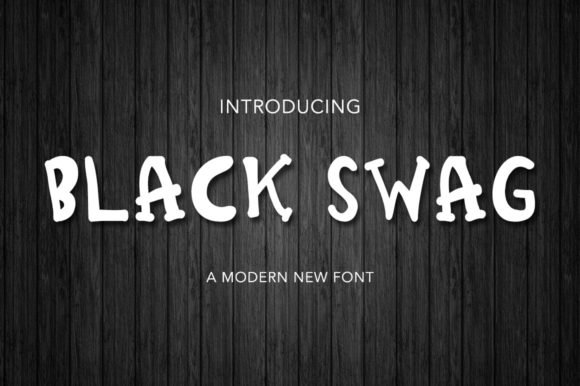
Enter the Black Swag Font, a cute and casual display font that’s sure to turn your creative ideas into stunning reality. Whether you’re looking to add a personal touch to your social media posts or create beautiful calligraphy scripts for DIY projects, the Black Swag Font is the perfect choice. Its versatility and charm make it a valuable asset for any designer looking to add a unique touch to their work.
Key Features of Black Swag Font
- Unique Characteristics: Black Swag Font features a bold, modern design with a touch of elegance, making it ideal for creating eye-catching headlines and titles.
- Style Options: Available in regular and bold weights, providing flexibility for designers to choose the perfect style to match their design needs.
Designer Review: Black Swag Font
Overall, I think the Black Swag Font is a solid choice for anyone looking to add a touch of edginess to their design. ✨ Here are a few things I think work well:
- Unique aesthetic: The Black Swag Font has a distinctive look that sets it apart from more generic sans-serif fonts.
- Good for bold statements: The font’s bold and edgy nature makes it perfect for headlines, titles, and other areas where you want to make a statement.
- Works well in digital design: I’ve had good luck using the Black Swag Font in digital designs, where its bold lines and angles seem to pop.
- Not ideal for body text: Due to its bold nature, the Black Swag Font can be difficult to read in large blocks of text.
- May not be suitable for all audiences: The font’s edgy aesthetic may not be suitable for all types of designs or audiences.
- Limited language support: I’ve noticed that the font doesn’t support all languages, which could be a limitation for international designs.
- ⚠️ It’s also worth noting that some users have reported issues with font consistency and rendering.
Overall, I think the Black Swag Font is a great choice for designers who want to add a touch of edginess to their designs, but it’s not without its limitations. With careful use and consideration, it can be a powerful tool in your design arsenal.
Use the Black Swag font to add a touch of elegance and sophistication to your designs. It’s perfect for:
- Luxury product branding and packaging
Remember to use the font in moderation, as it can be quite bold and eye-catching.